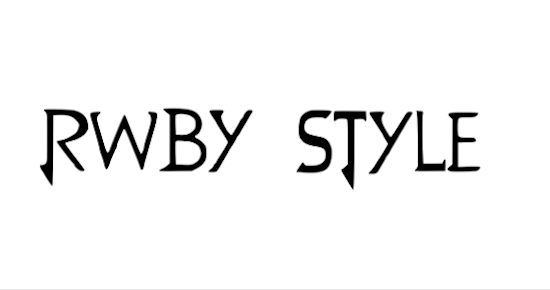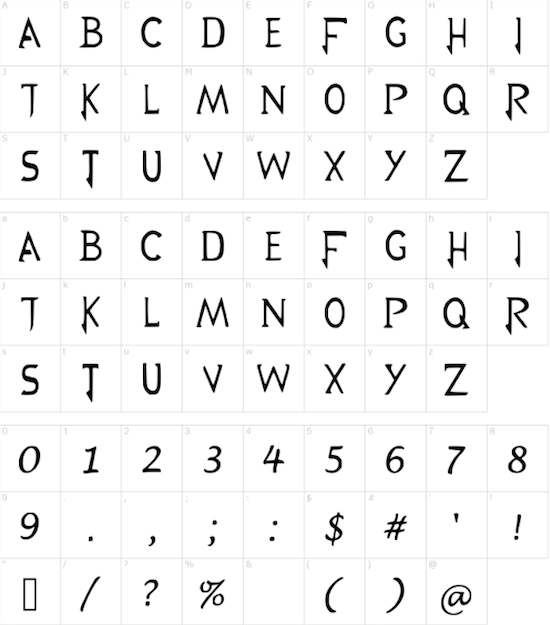
Rwby Font
by DemonResurrect427
Rwby is a flowing fancy font with a unique whim look, it was designed and published by DemonResurrect427. Besides, It’s described with a classy touch so that it’s very perfect for your favorite designs. It’s PUA encoded, so, you can access easily & fastly all of the swashes & glyphs.
This is a fancy type with an arrogantly slightly distinctive texture coupled with very tight narrowness and compression. However, because of that special, it will look great in many of your favorite design projects. Rwby font will quickly bring your projects to life and attract your audience.